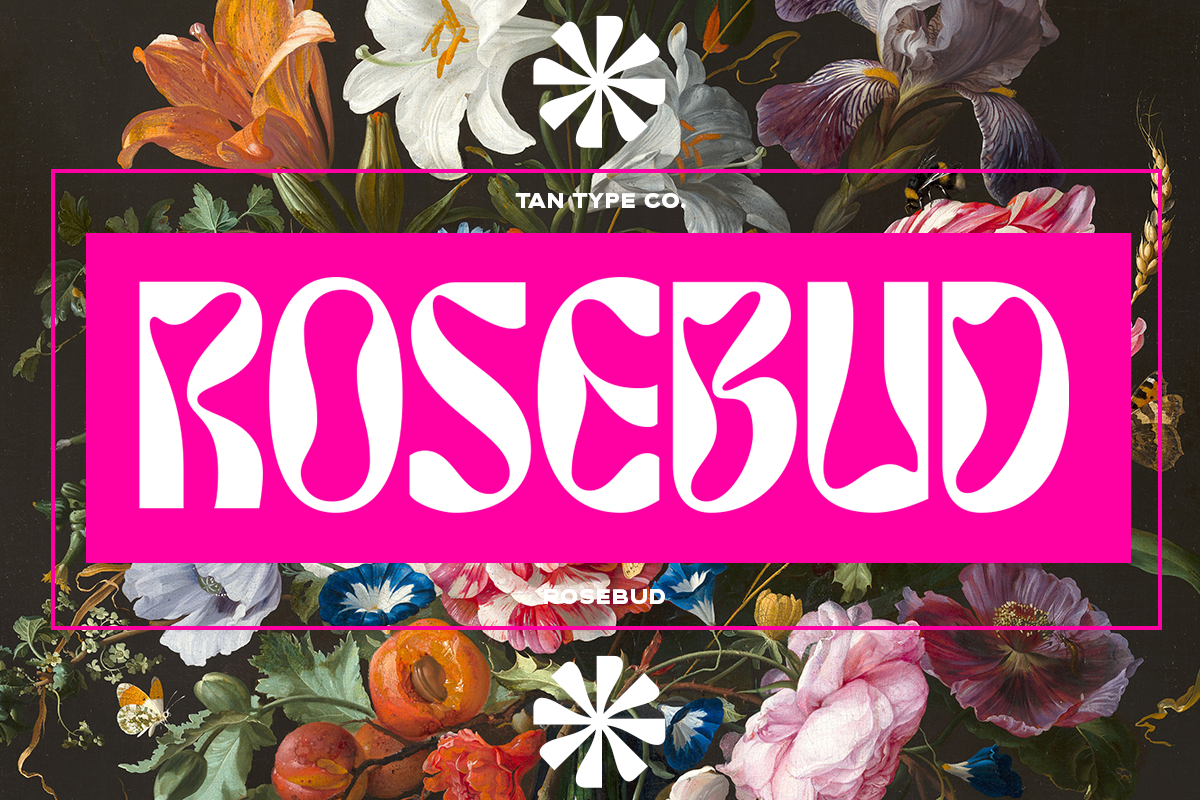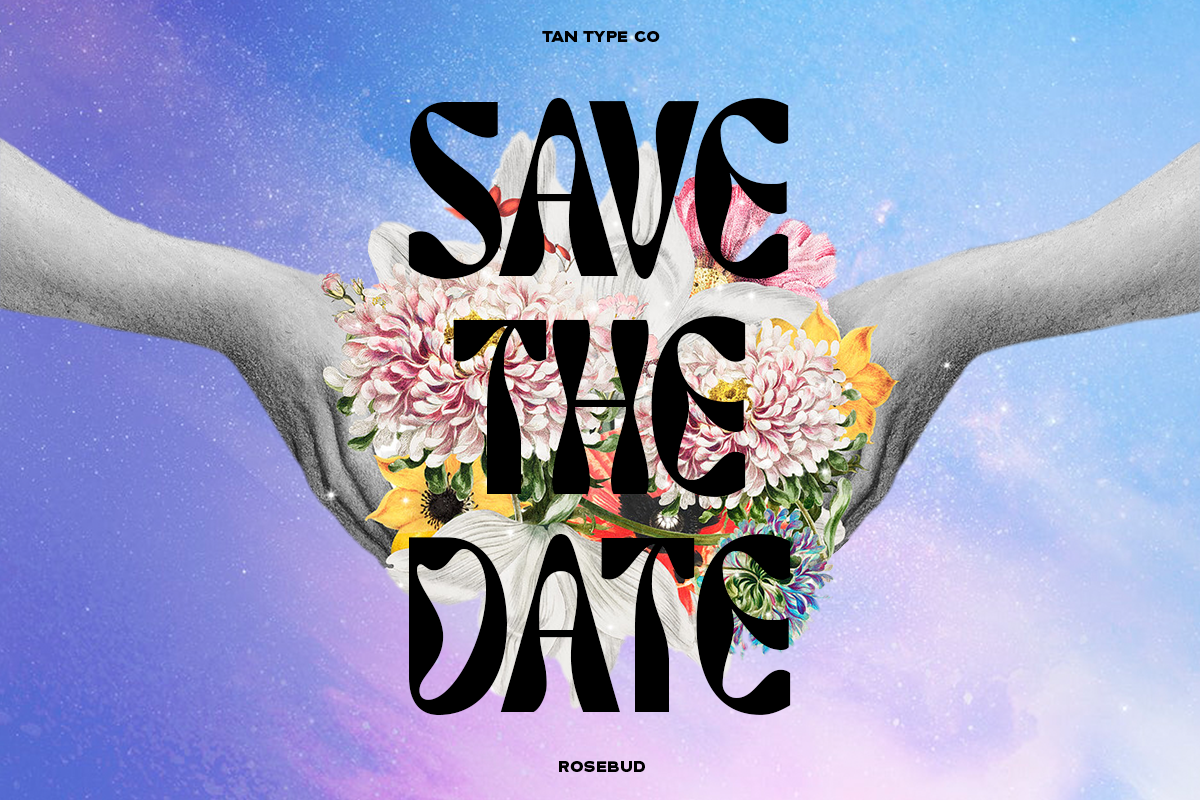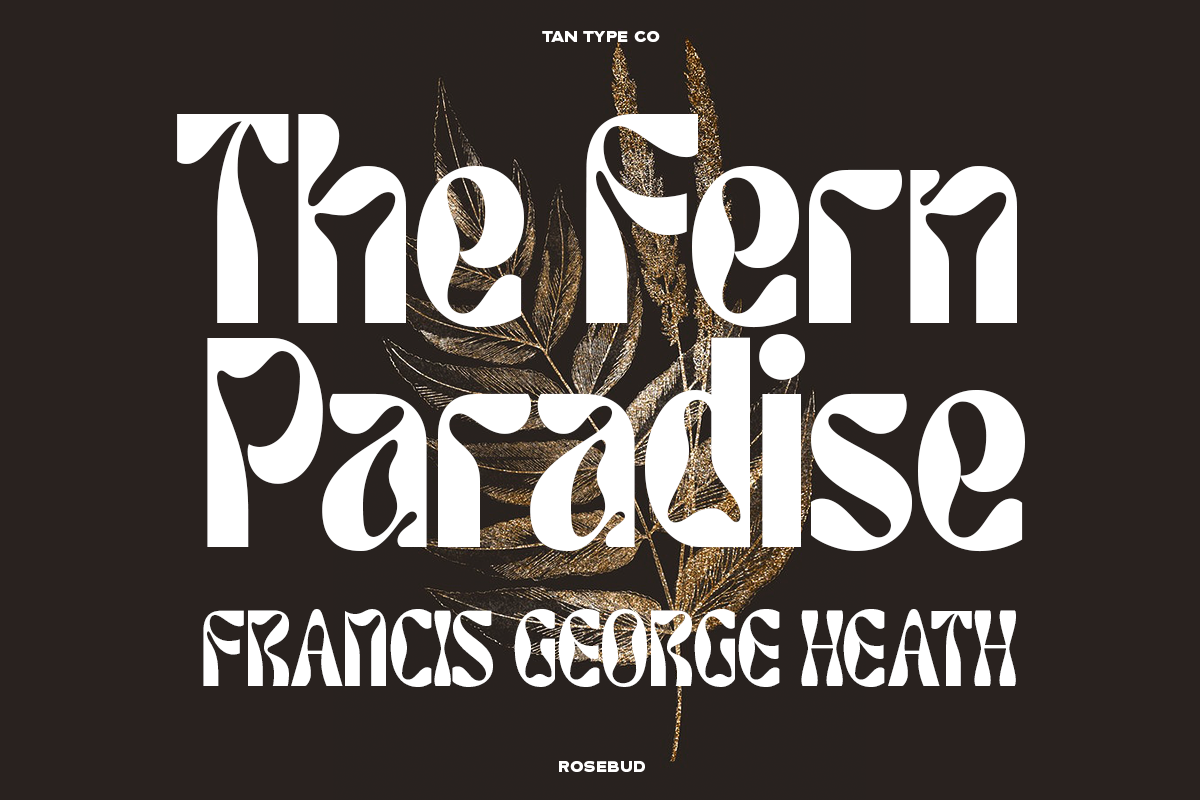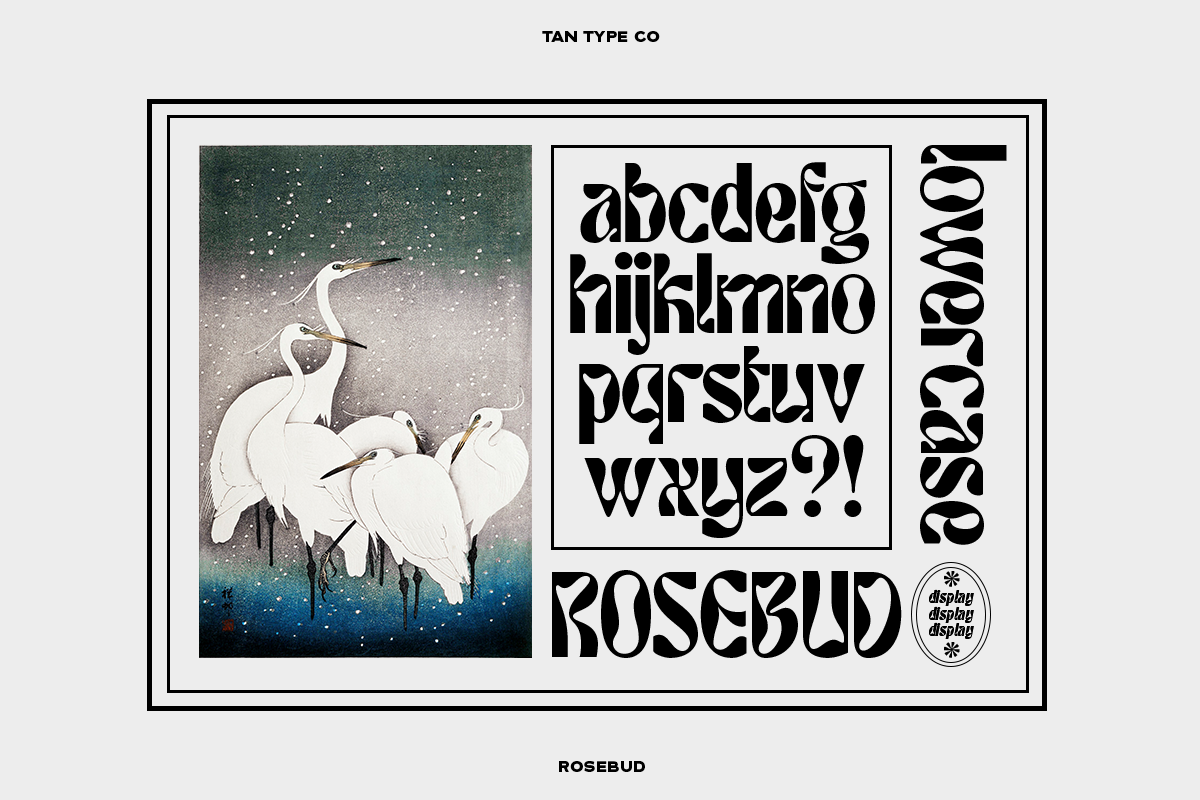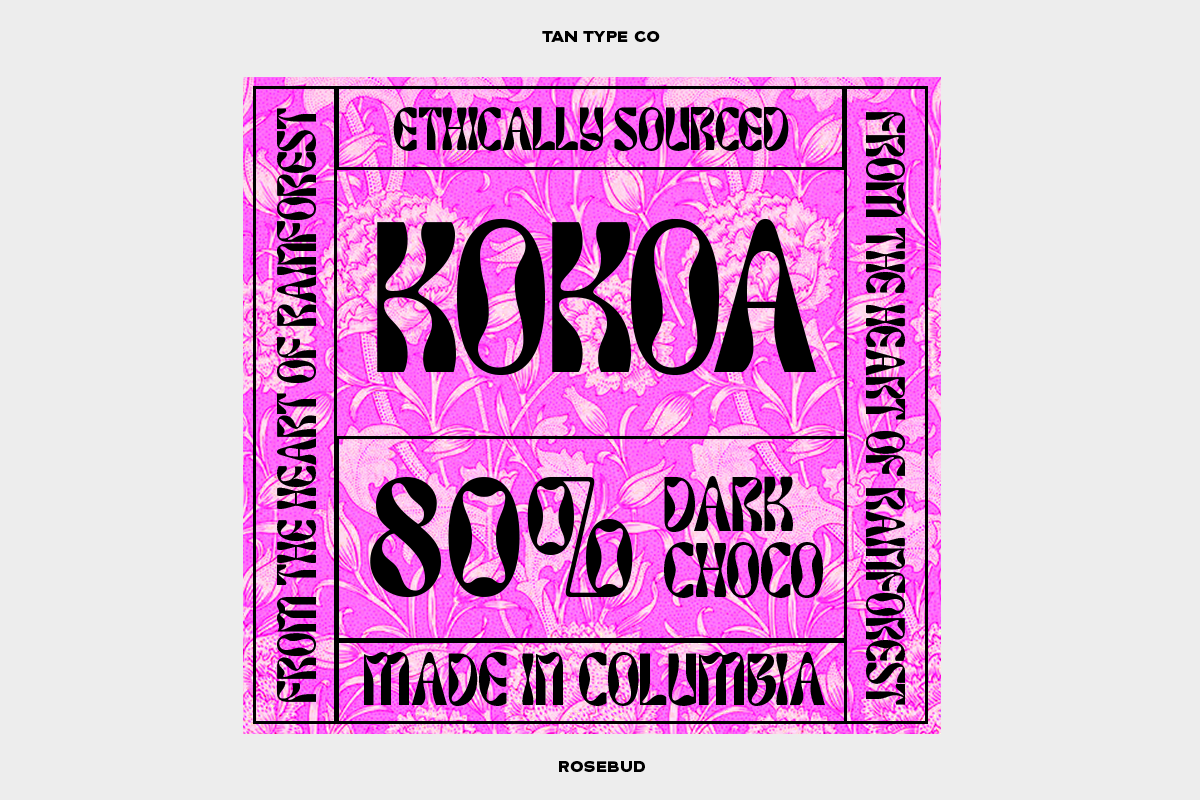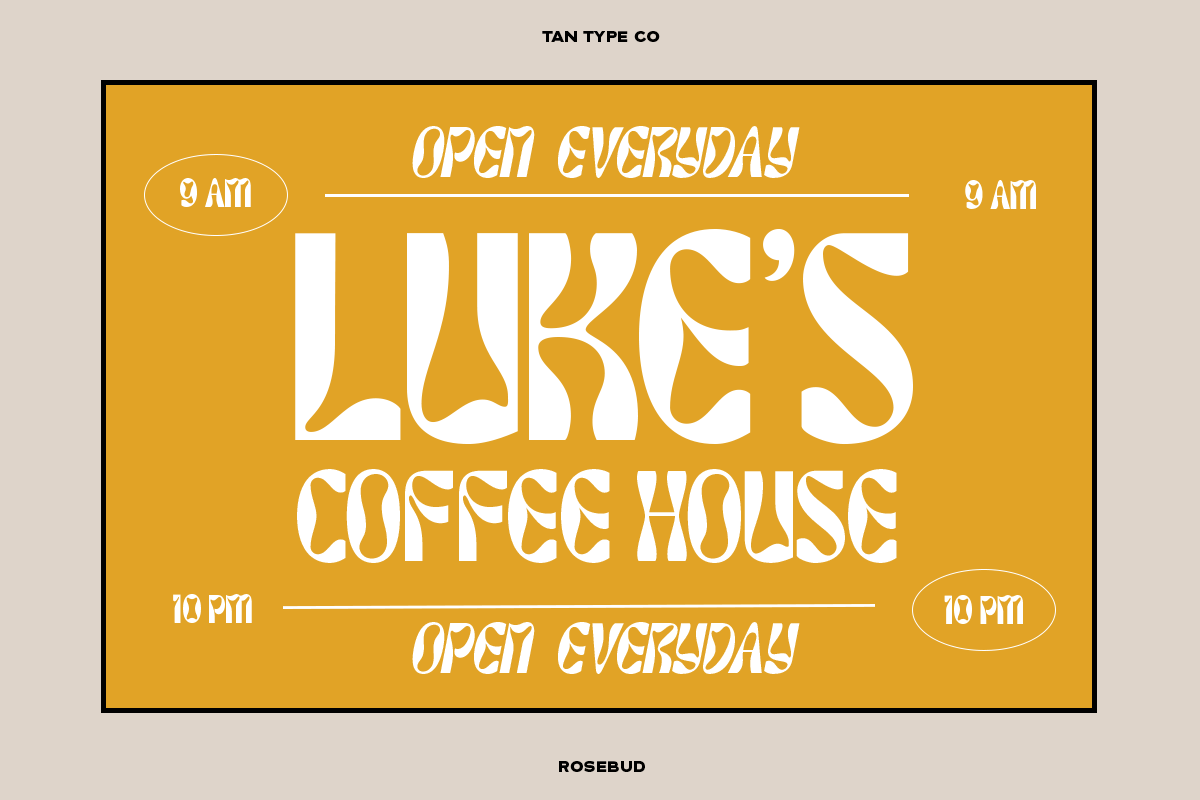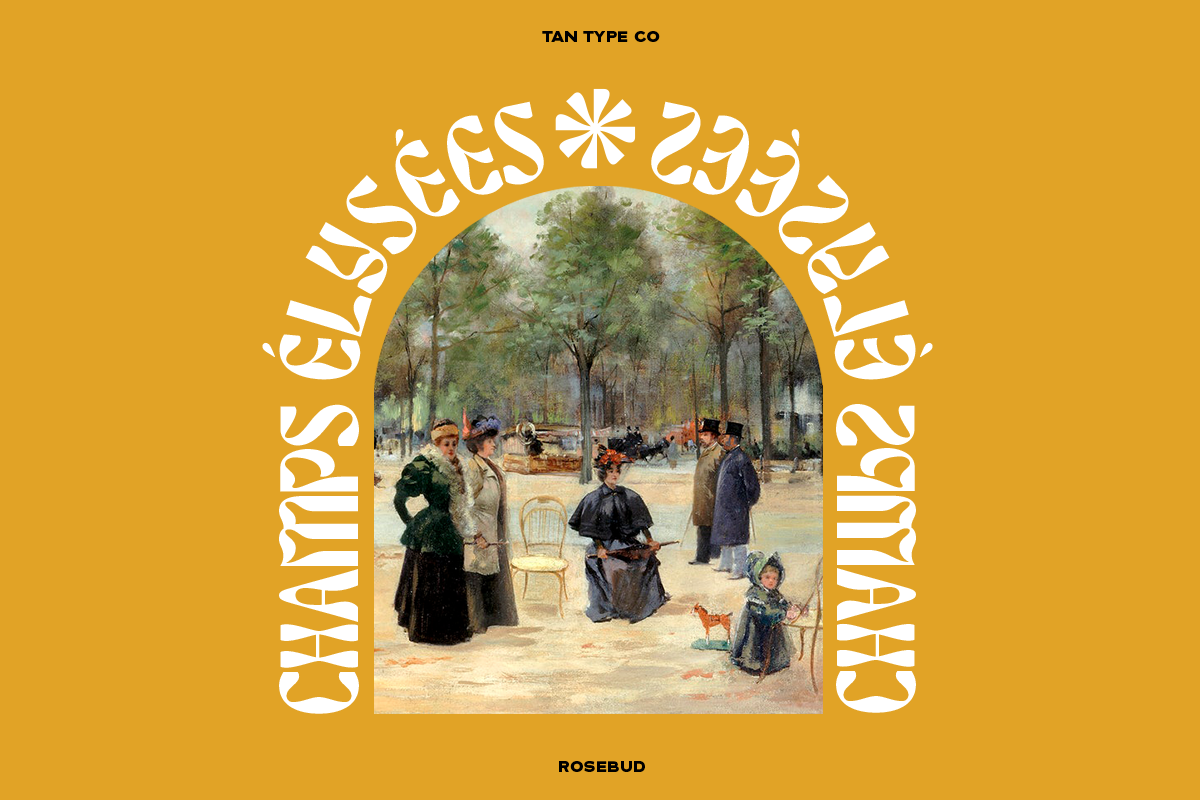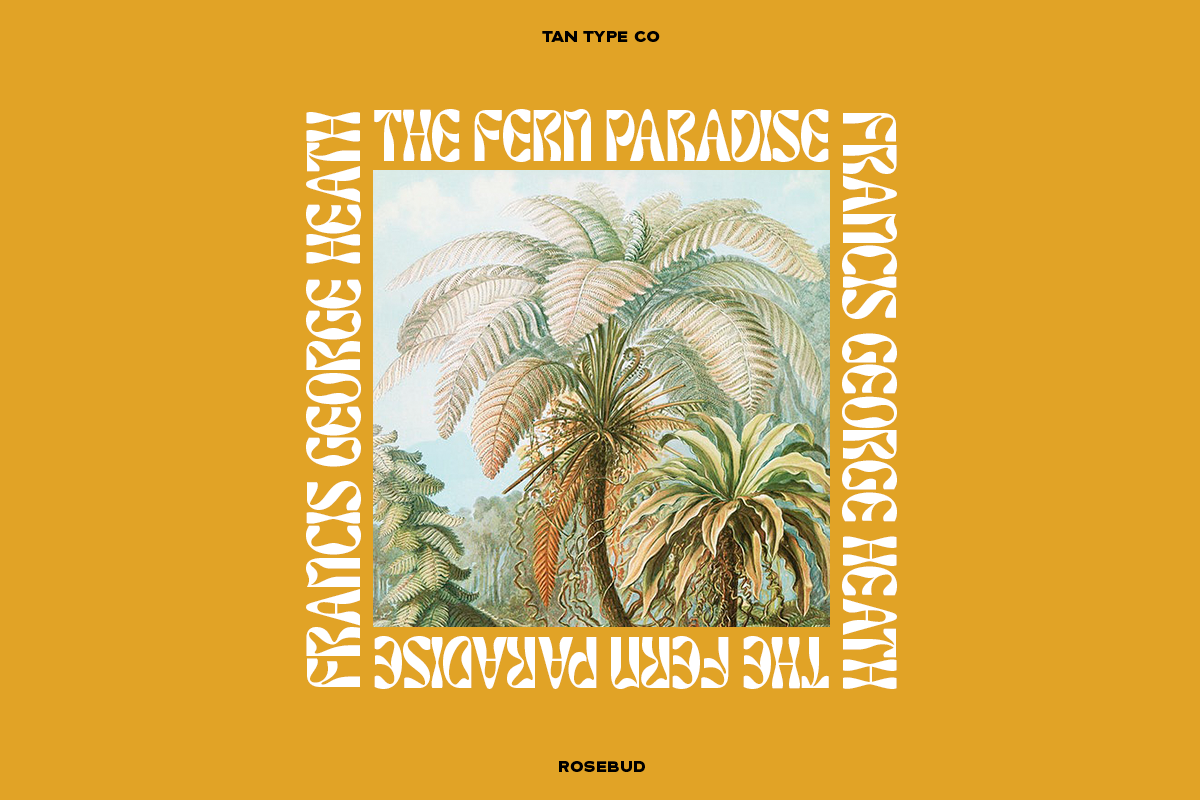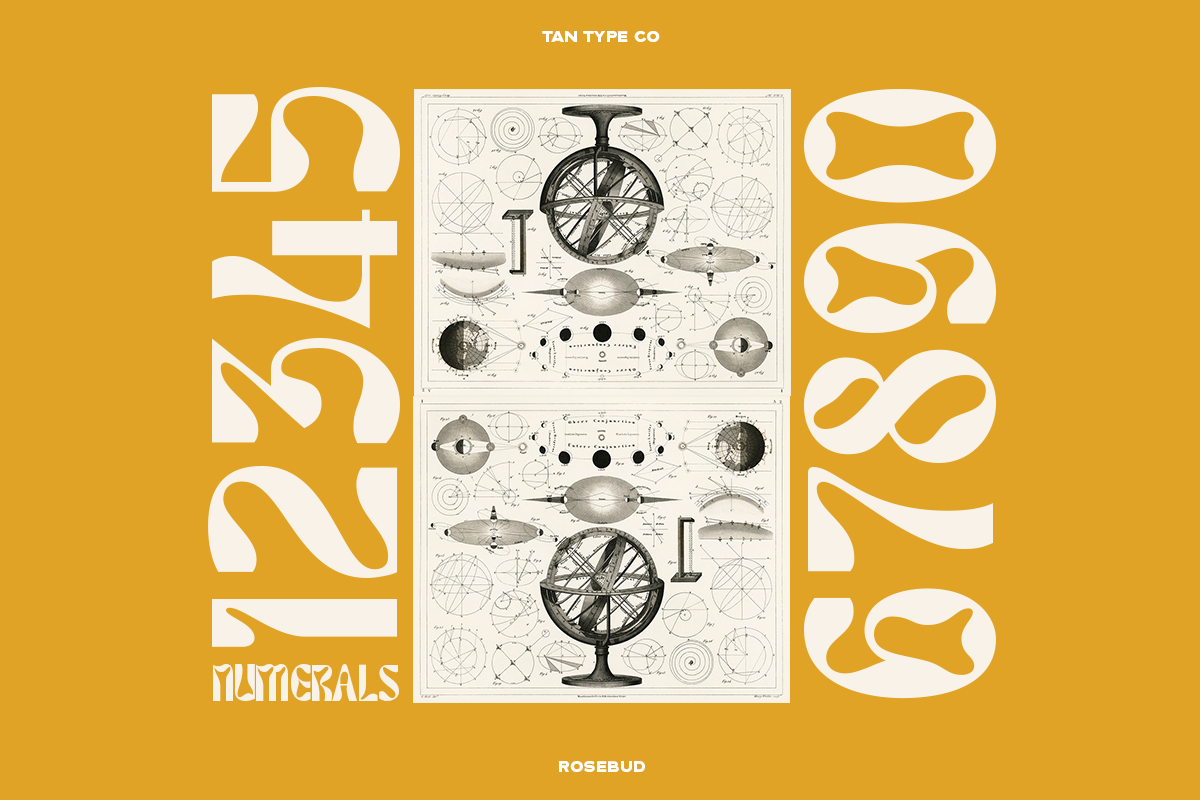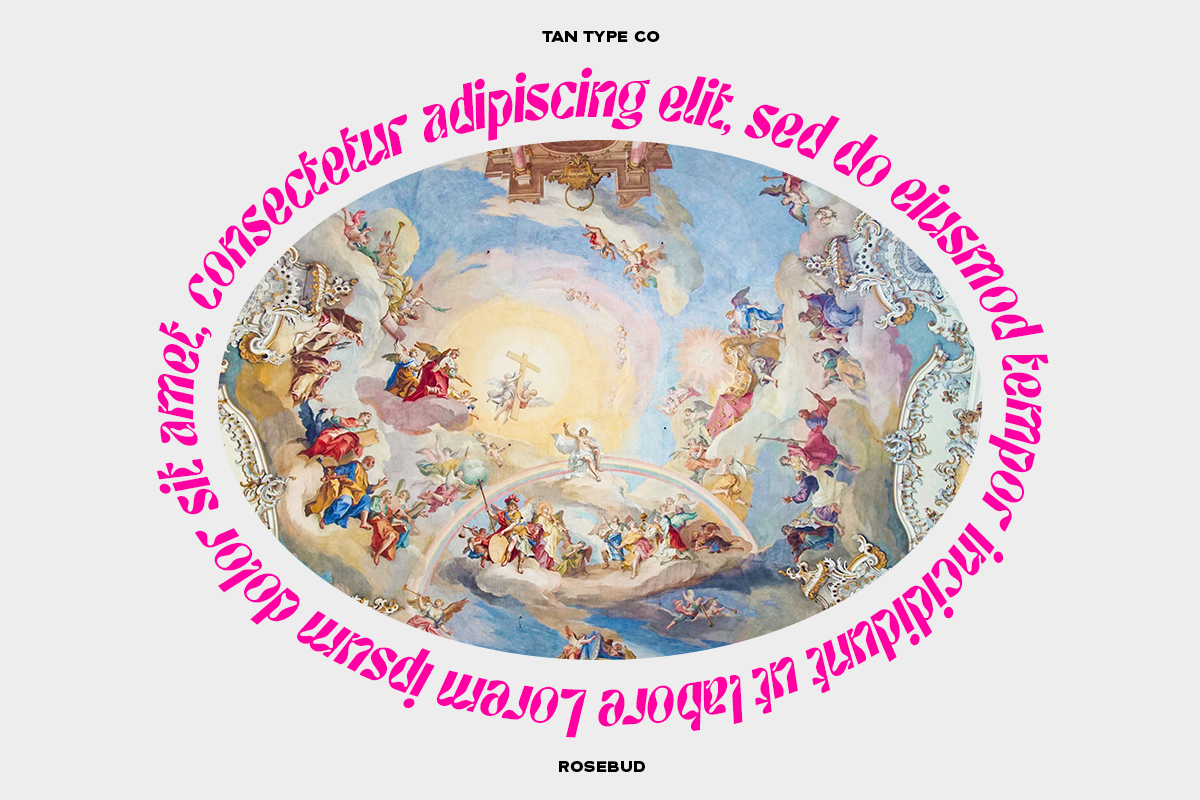
Rosebud is a bold and playful display typeface bursting with retro flair and floral charm. With ultra-rounded shapes, dramatic curves, and a groovy, petal-inspired aesthetic, Rosebud captures the spirit of 60s and 70s psychedelia. Perfect for statement posters, album covers, packaging, and anything that craves personality, this font is a visual bouquet of boldness and beauty.